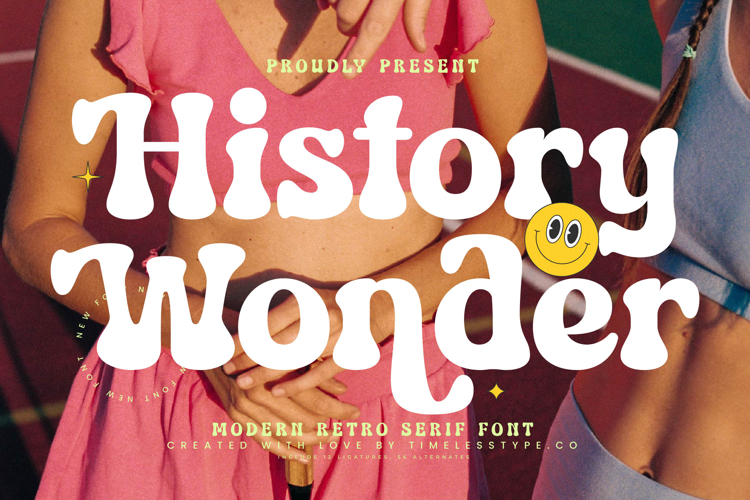
History Wonder - Modern Retro Serif Font
History Wonder is a modern retro serif font that radiates playful charm, bold personality, and groovy vintage flair. With its chunky strokes, rounded edges, and wavy curves, this typeface brings a fun yet confident look that feels nostalgic while staying fresh for contemporary design. Designed with 12 ligatures and 56 alternates, History Wonder offers designers endless flexibility to create expressive typography that is dynamic, stylish, and unique.
This font shines in headline typography, where its bold and quirky forms immediately capture attention across posters, banners, and editorial layouts. In branding and logo design, History Wonder communicates creativity and friendliness, making it an excellent choice for lifestyle products, fashion labels, youth-oriented brands, and artisanal businesses seeking a memorable identity. Its playful yet strong personality also makes it highly effective in packaging design, especially for food, beverages, and fun consumer goods, where typography must be vibrant and engaging.
History Wonder is equally impactful in advertising campaigns, event promotions, and social media graphics, where its groovy ligatures and alternates bring energy and individuality. For editorial spreads, merchandise, and lifestyle branding, the font adds warmth and charm, ensuring typography becomes a focal point of the visual narrative.
With multilingual support, History Wonder adapts seamlessly across global projects, making it a versatile font for both local and international branding.
Ultimately, History Wonder is more than just a retro serif—it is a design tool for fun, bold, and expressive creativity. Whether used for headlines, branding, packaging, advertising, or digital media, it guarantees projects that radiate charm, style, and unforgettable retro-modern character.